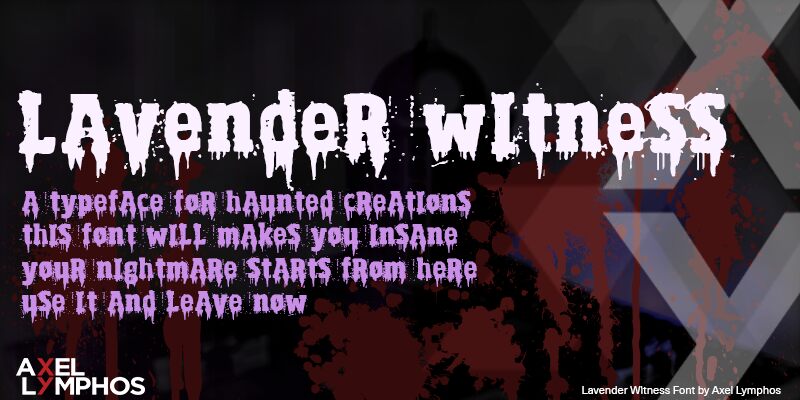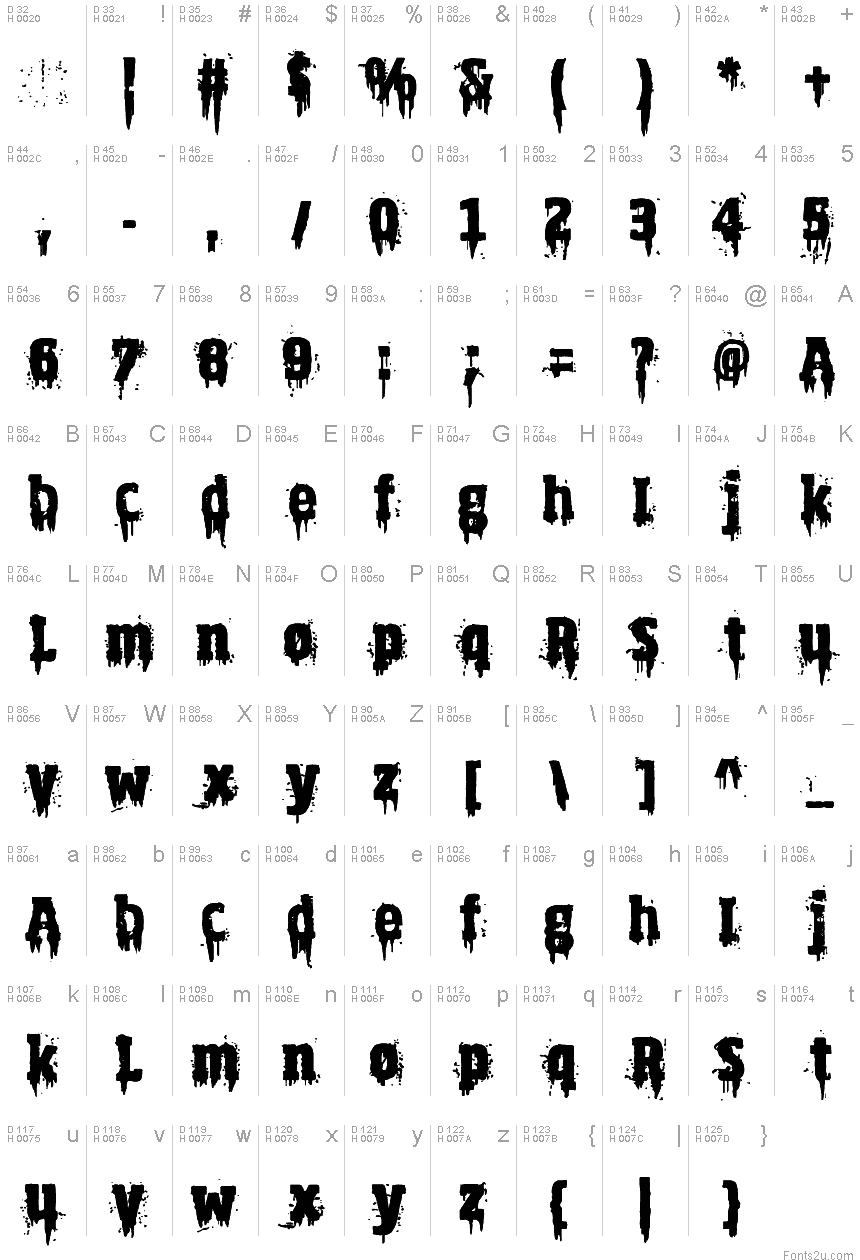
Lavender Witness
This font came from unreal syndrome that potentially damage your brain.
A typeface for haunted creations
Use it!
LEAVE NOW!!
A typeface for haunted creations
Use it!
LEAVE NOW!!